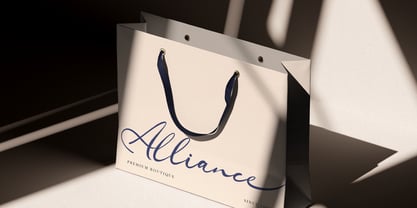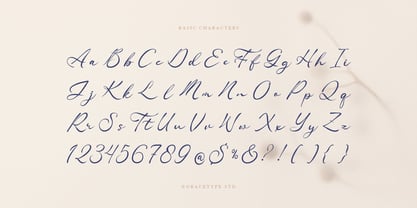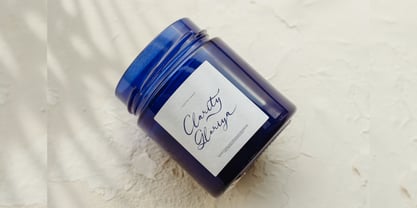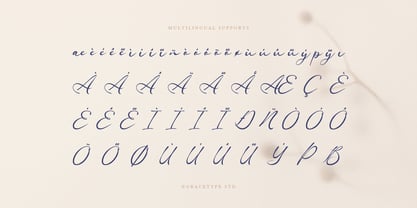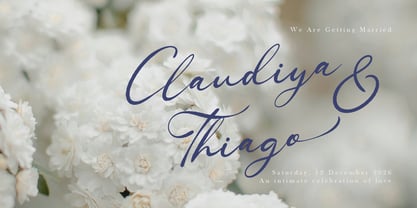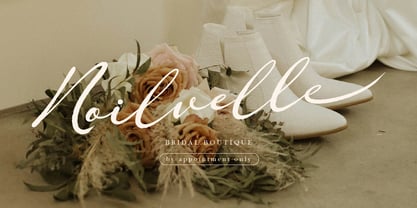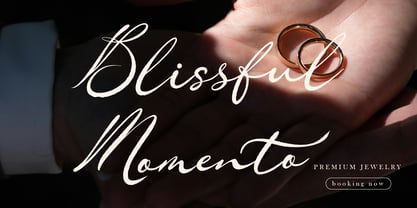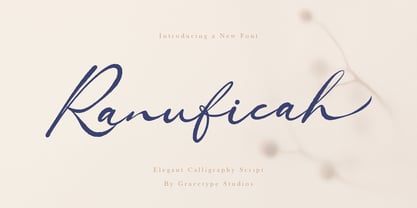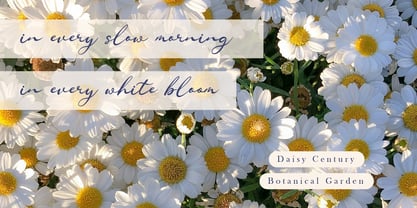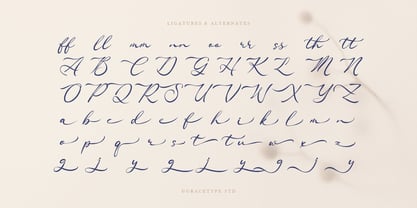
Ranuficah
Ranuficah | Elegant Calligraphy Script from Gracetypestudio, suitable for any projects such as: logos, branding projects, homeware designs, product packaging, mugs, quotes, posters, shopping bags, t-shirts, book covers, name card, invitation cards, greeting cards, label, photography, watermark, special events, and all your other lovely projects that need a Script taste.